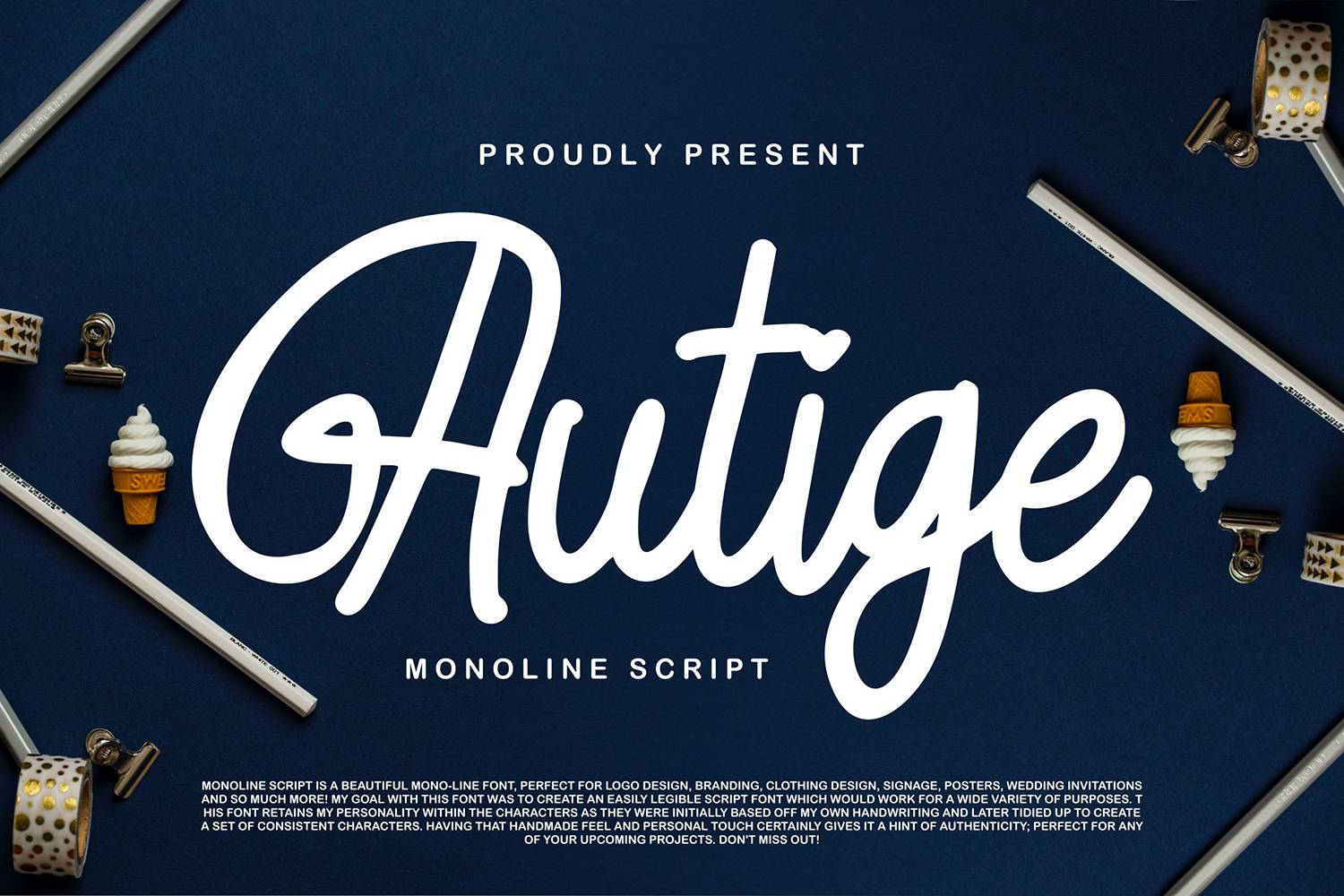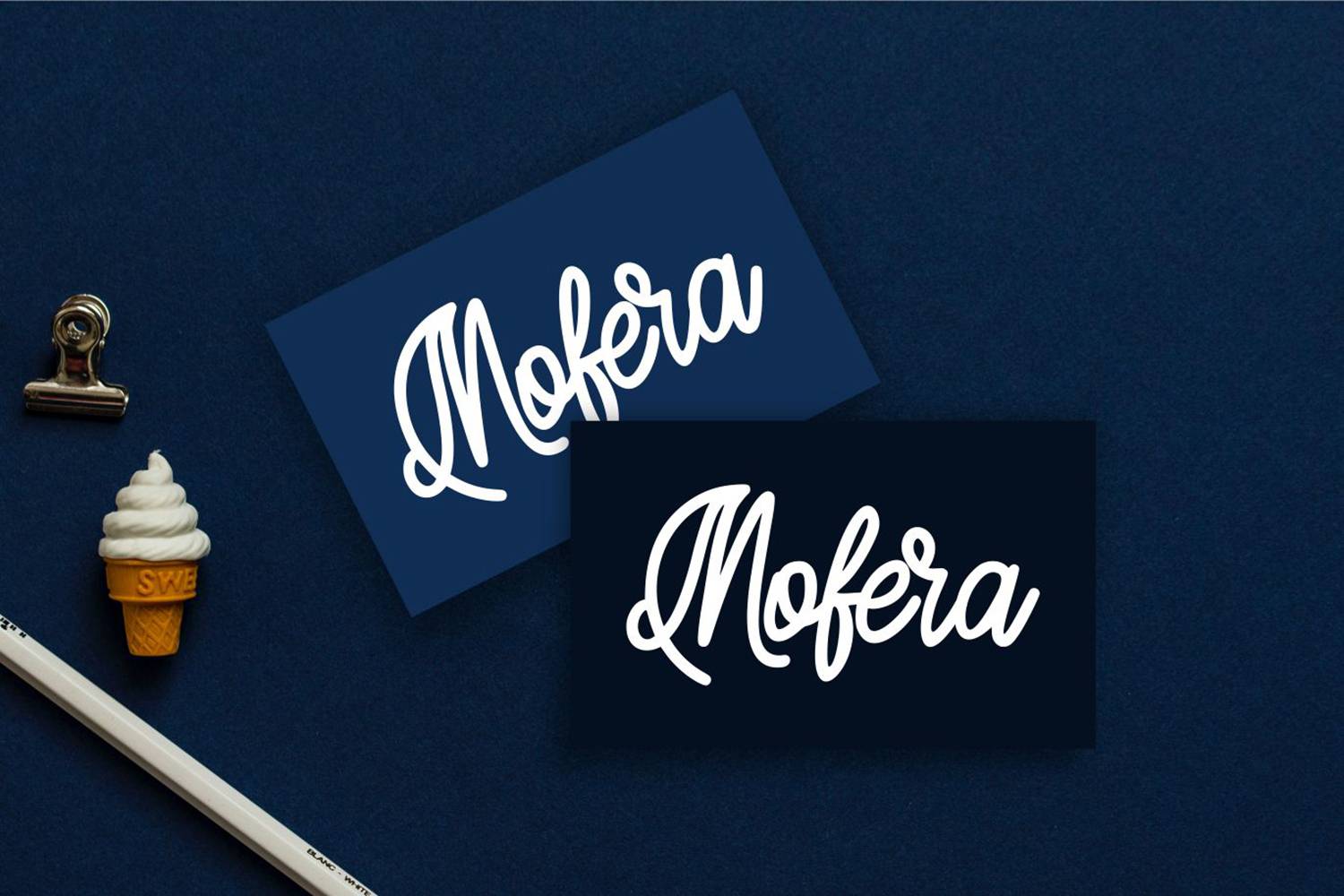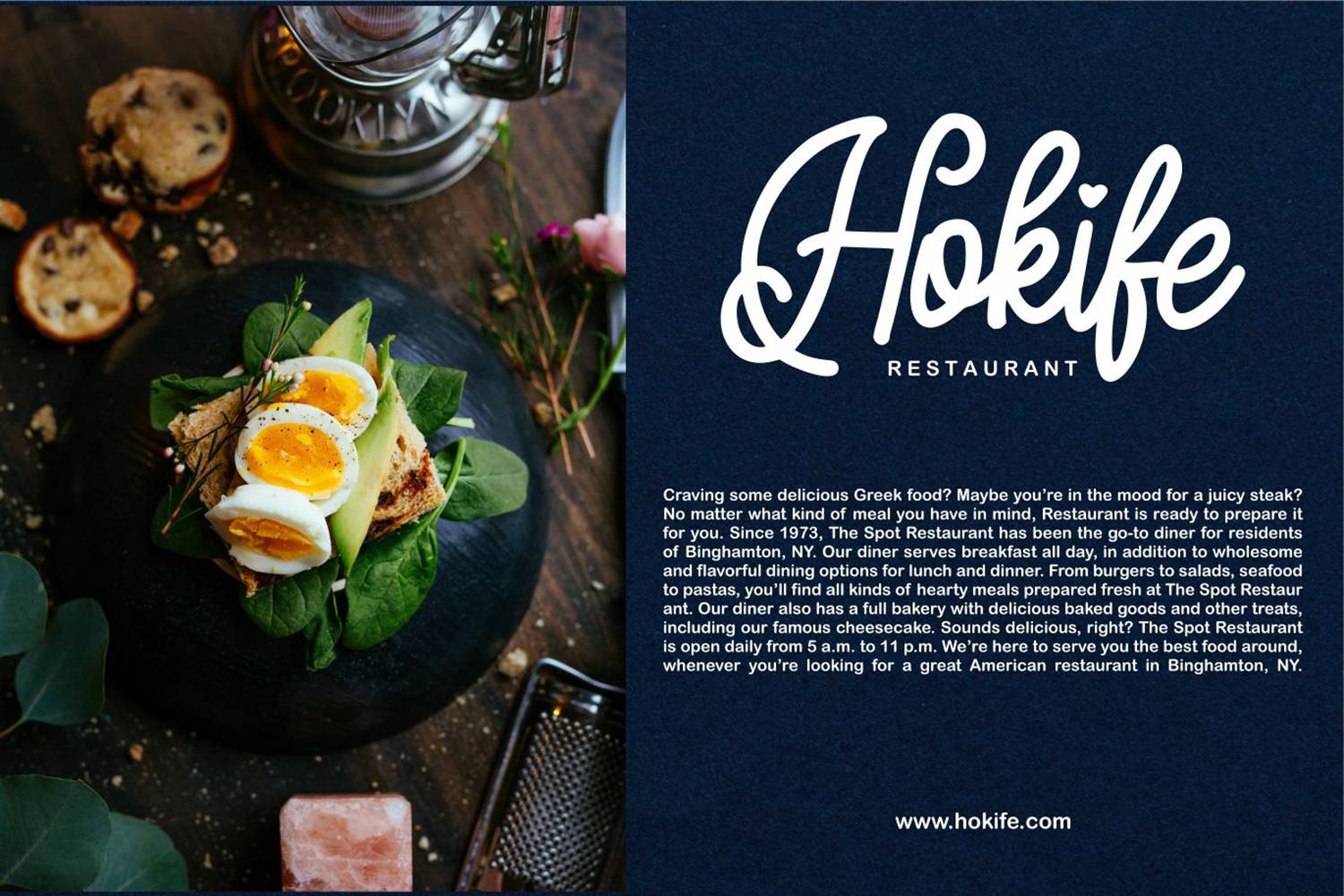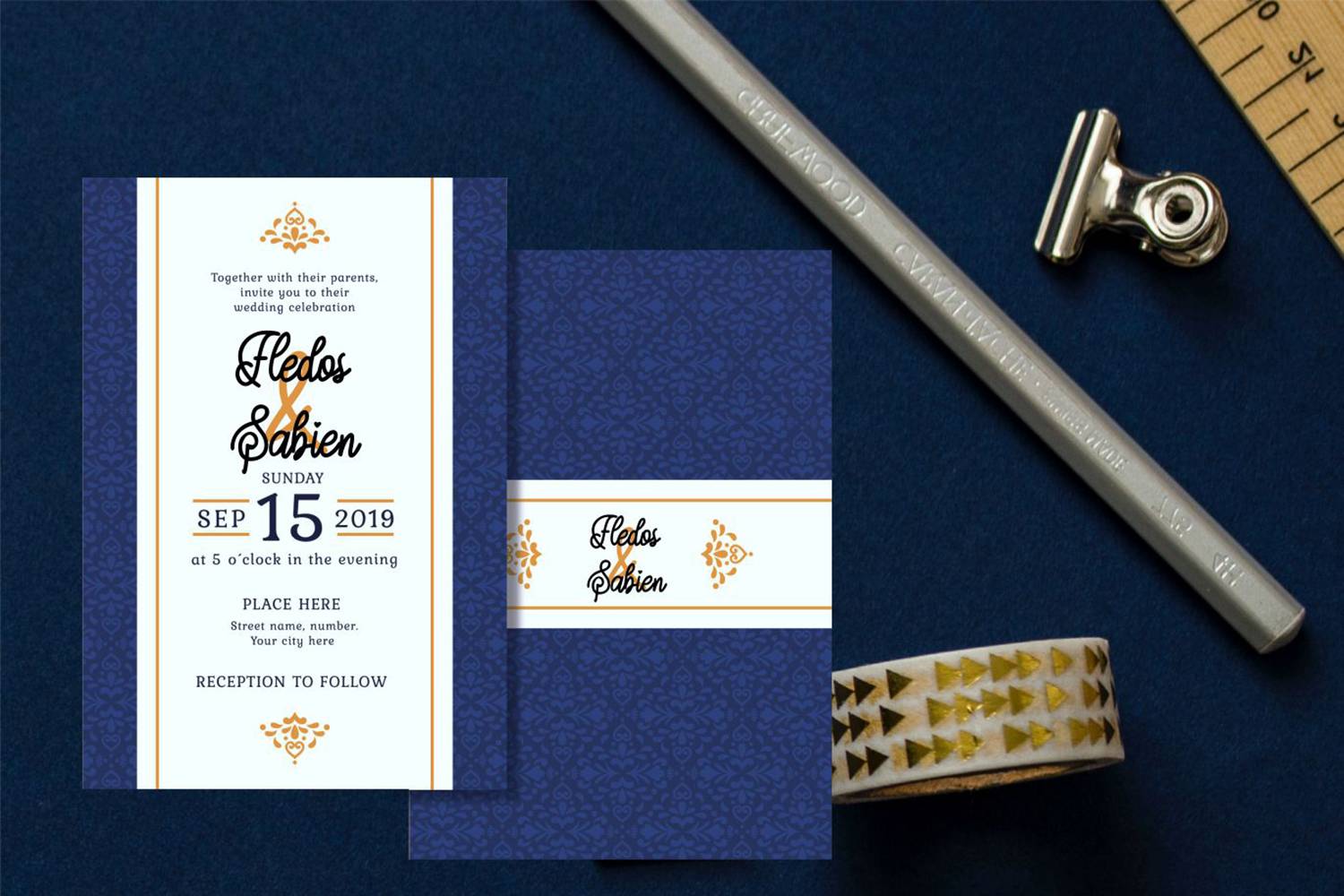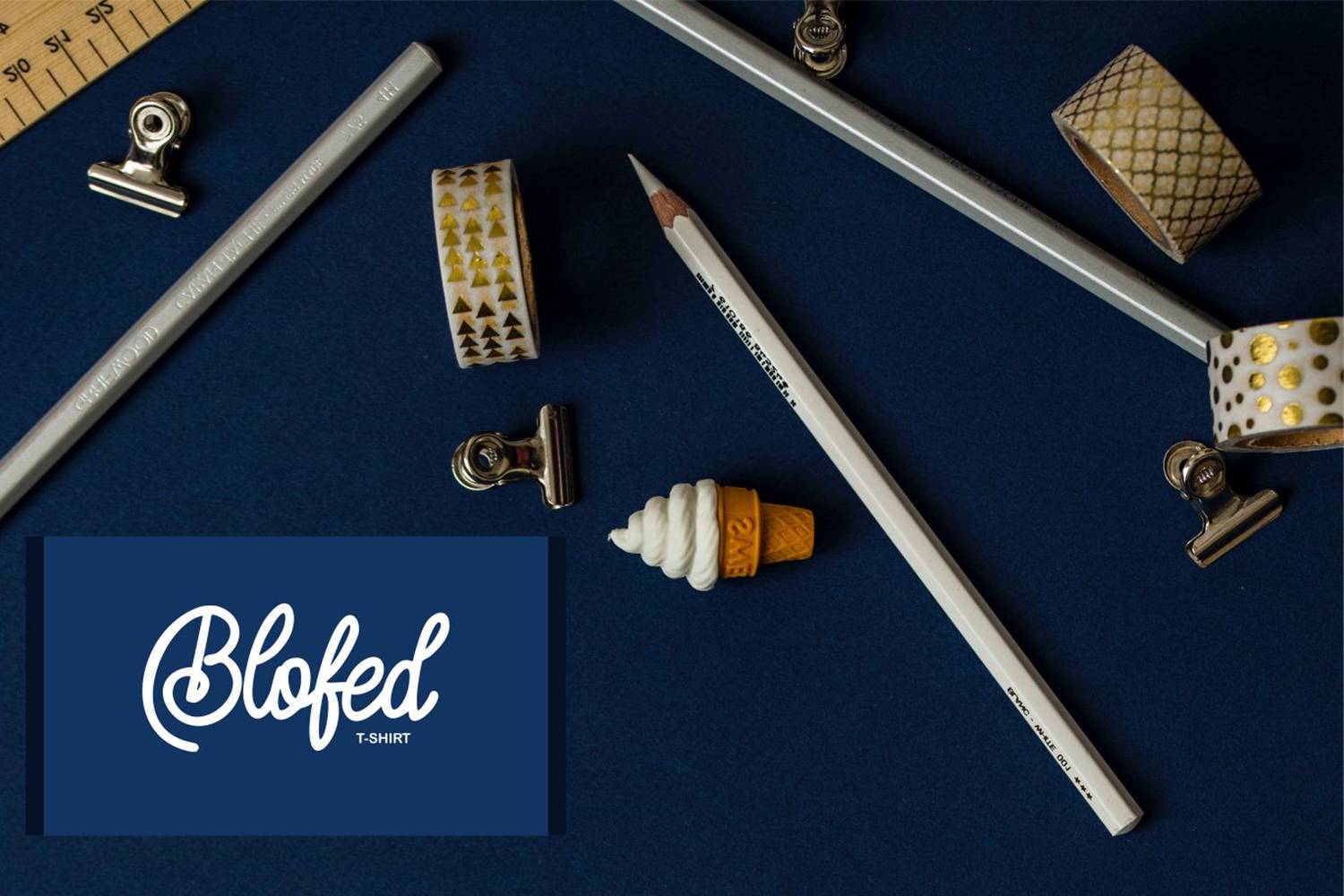
Autige is a playful and elegant script font featuring smooth, flowing strokes and well-balanced letterforms with both uppercase and lowercase characters. Its lively, handwritten style makes it perfect for creative projects, invitations, logos, and branding that seek a personal, stylish touch. This font blends charm and readability, making it ideal for designs that want to convey warmth and sophistication.
| Font family | Autige Font |
| Designer | Fannan Studio |